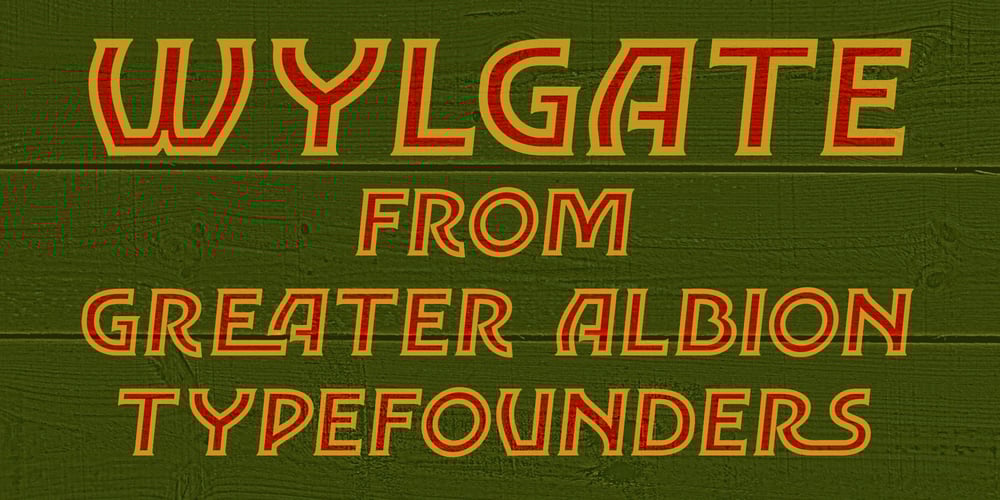
Wylgate Font Family was designed by Paul James Lloyd and published by Greater Albion Typefounders. Wylgate contains 1 styles and family package options. Wylgate us a classic sign writer’s lettering style, designed on an oblique line to capture and a sense of motion and speed. It’s a timeless design which can be used to draw attention to a headline or a sign, while maintaining perfect legibility. Bring a ‘middle 20th century’ feel to your next project.